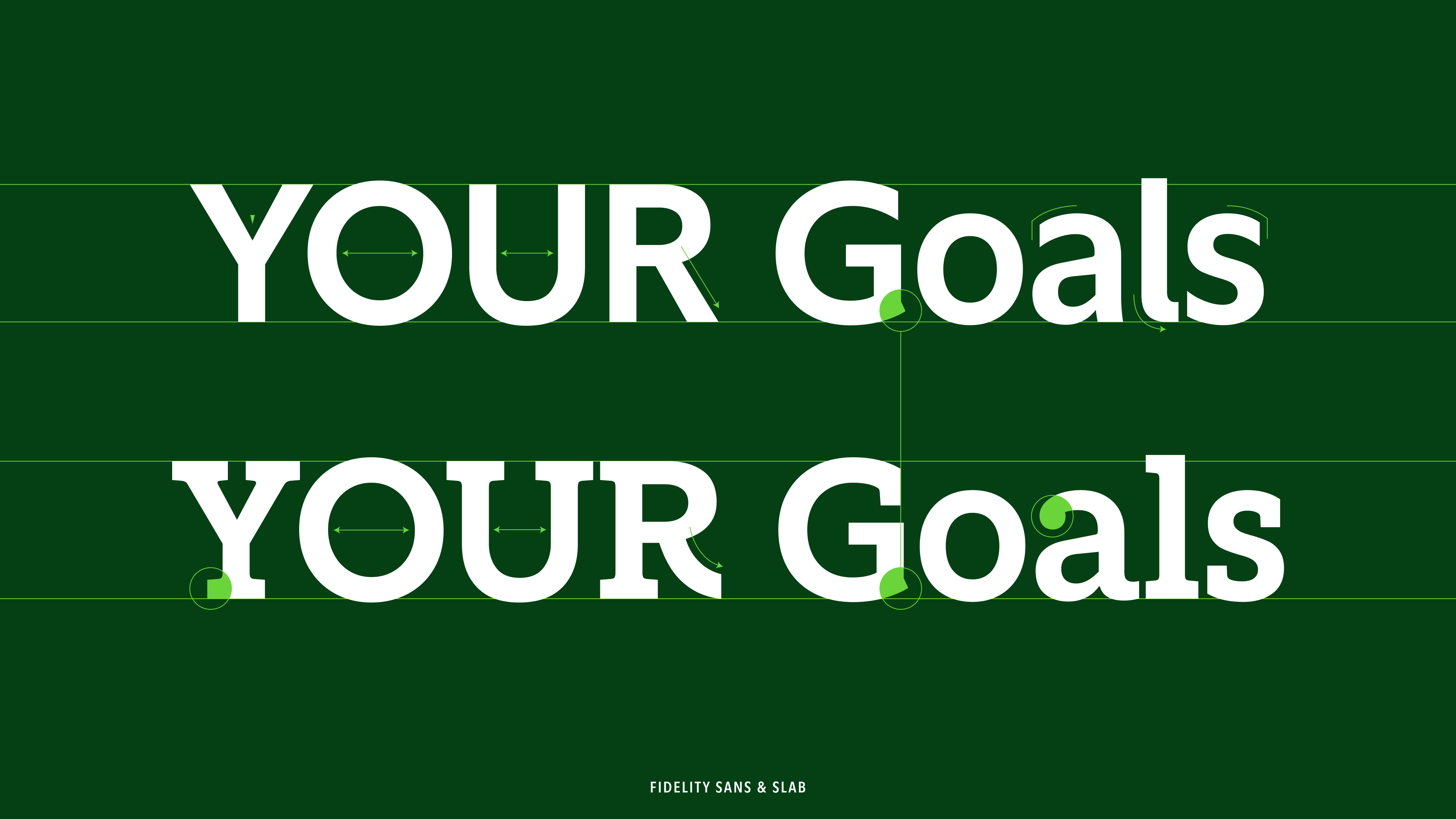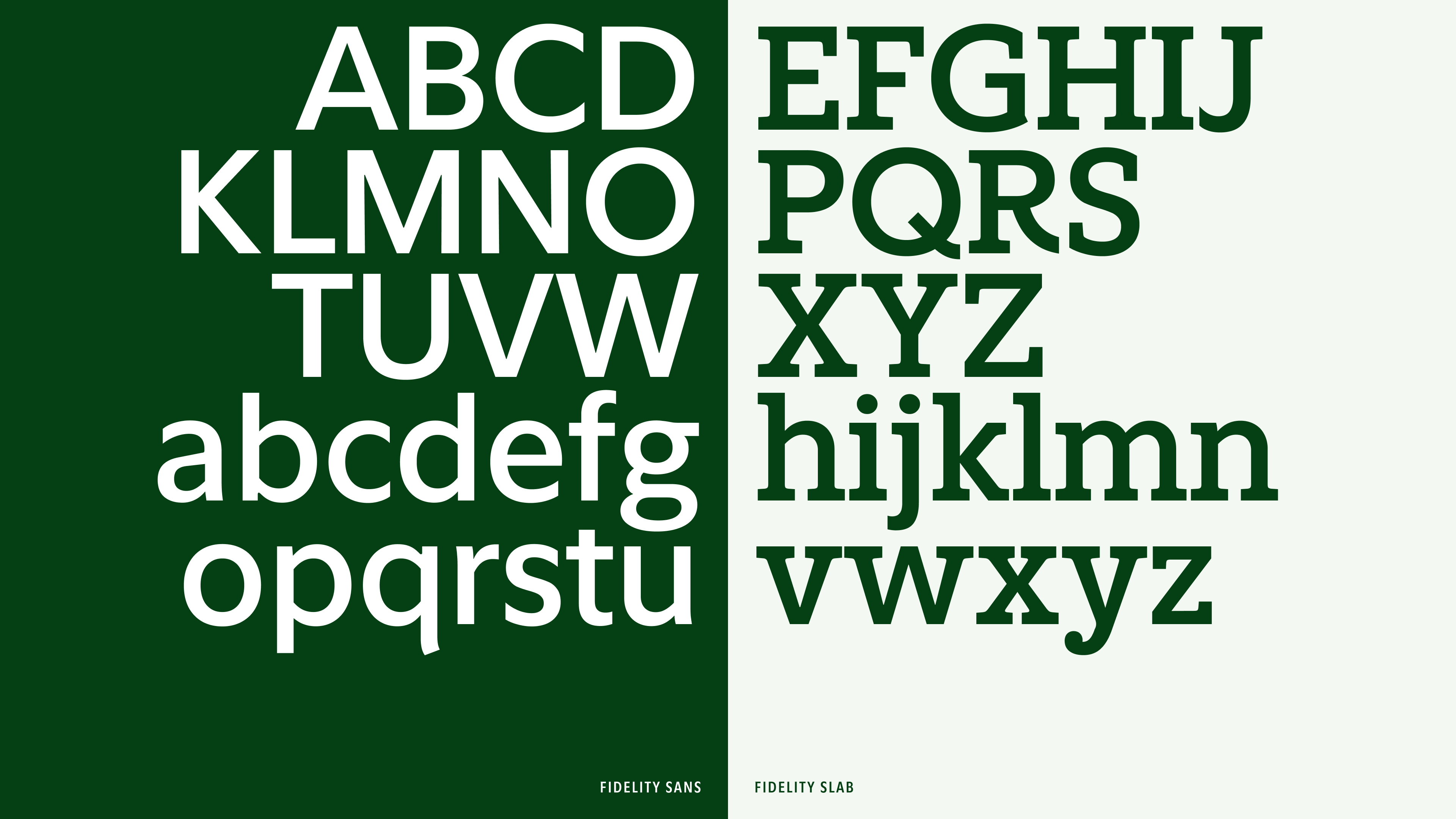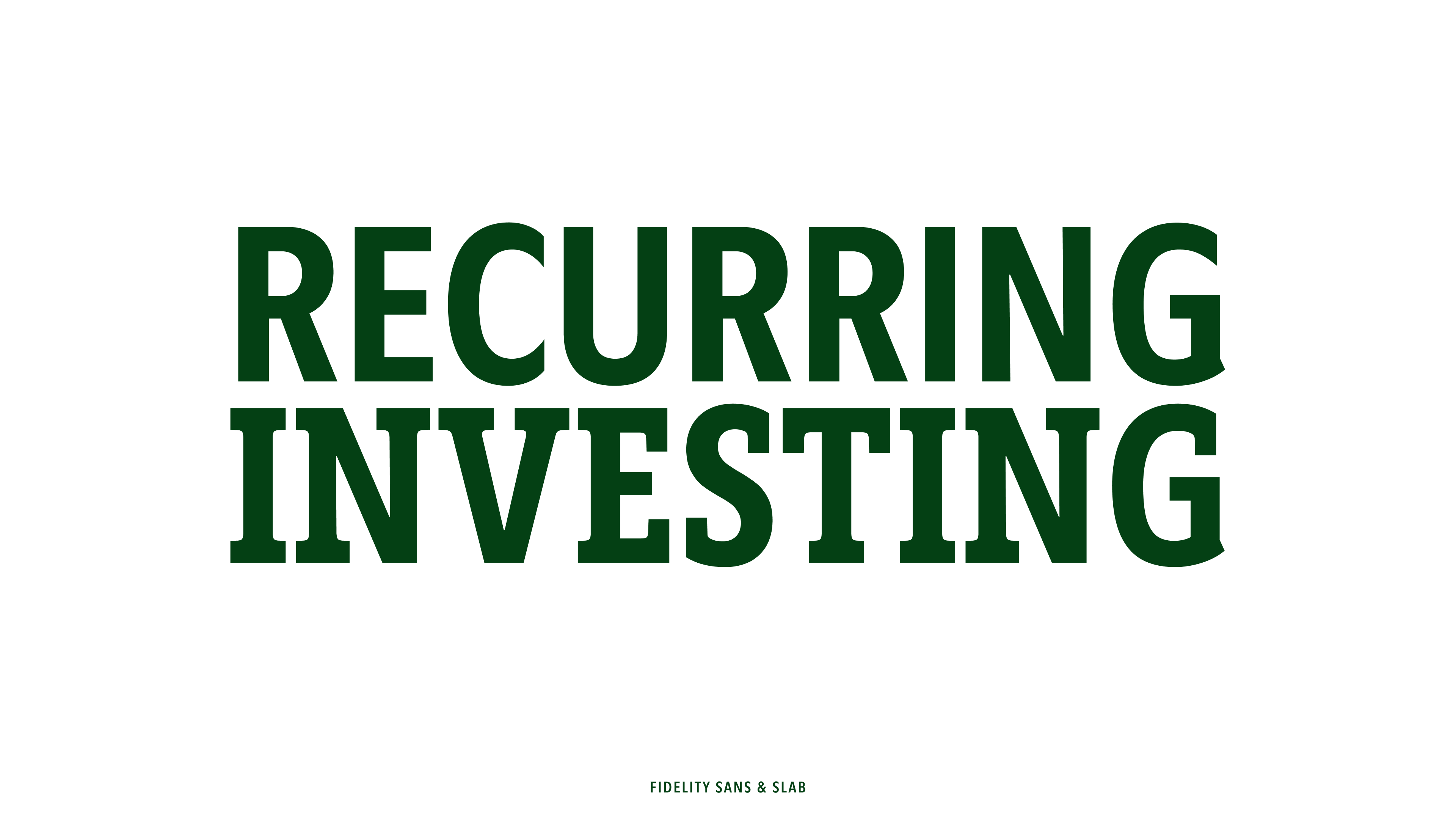
Custom super family for the international financial services corporation Fidelity Investments.
Fidelity approached us with an ambitious project to develop an extensive type system to cover all their communication needs.
Fidelity had a strong understanding of the impact a typeface could have on the voice and identity of the company. In close collaboration, we set out to create a distinct and welcoming typeface that would embody and communicate the values of the Fidelity brand.
Being one of the largest asset managers in the world, it was of the utmost importance that the typeface perform perfectly across the wide range of platforms on which Fidelity operates. Legibility, readability, and versatility were at the core of the design. During development, we worked closely with Fidelity’s accessibility team to establish an extensive testing environment that allowed us to thoroughly test proportions, design choices, and their impact on legibility and readability.
The super family consists of an expressive and friendly slab serif and a distinct, humanistic sans serif with subtle organic detailing. Both styles are developed around a multi-axis variable design space, enabling the use of an unrestricted range of weights and widths.